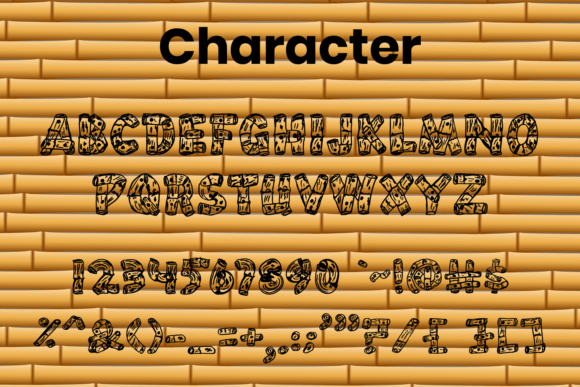
Getting Started with Plants Draw Font
Have you ever been brainstorming a creative project, and the perfect font suddenly pops into your mind? That’s exactly what happened to me when I stumbled upon the Plants Draw Font. I was working on a children’s game design, and I needed a font that would transport my audience to a whimsical world of cartoons and imagination.
As I delved deeper into the world of design resources, I realized that the Plants Draw Font is more than just a pretty face – it’s a valuable tool for designers who want to add a touch of personality to their projects. With its unique outlined display style and high-quality design, this font is perfect for anyone looking to create eye-catching graphics, illustrations, or even animations with a transparent background.
Key Features of Plants Draw Font
- High-quality, detailed illustrations of various plants, ideal for creative projects and design resources.
- Available in transparent background, allowing for seamless integration with any design.
- Large size (A4) and high resolution (300 DPI) for crisp and clear visuals.
- Unique, hand-drawn style adds a touch of personality to any design project.
- Perfect for use in branding, packaging, and editorial design, among other creative applications.
Honest Review: Plants Draw Font
I recently had the chance to explore the Plants Draw Font, and I must say it’s a unique addition to any design resource collection. With its whimsical and playful feel, it’s perfect for a creative project that needs a touch of nature.
One of the standout features of the Plants Draw Font is its ability to be used on a transparent background, which makes it easy to integrate into any design without overpowering the other elements. The font is also available for a free download, which is a definite plus for designers on a budget.
- Whimsical and playful design that adds a touch of nature to any project
- Ability to be used on a transparent background for seamless integration
- Limited customization options
- Not suitable for formal or professional projects
Overall, I was impressed with the Plants Draw Font. Its unique design and versatility make it a valuable addition to any design resource collection. However, it’s essential to keep in mind its limitations and use it in projects where its playful feel will shine.
Plants Draw Font
The Plants Draw Font is a unique design resource that offers a high-quality, customizable font for creative projects. This font features a transparent background, making it ideal for use in various design applications.
Tips for Getting the Most Out of Plants Draw Font
For the best results, use Plants Draw Font in conjunction with other high-quality design resources. Experiment with different font sizes, colors, and styles to create unique and visually appealing designs.
Plants Draw Font is ideal for use in various creative projects, including:
1. Infographics
2. Social media graphics
3. Brochures
4. Flyers
What is the resolution and quality of the Plants Draw Font?
The Plants Draw Font is a high-quality font, designed to meet the needs of designers who require crisp and clear typography. The font is available in a range of resolutions, including 72 dpi, 144 dpi, and 300 dpi. This ensures that the font looks great in a variety of design applications, from web design to print materials.